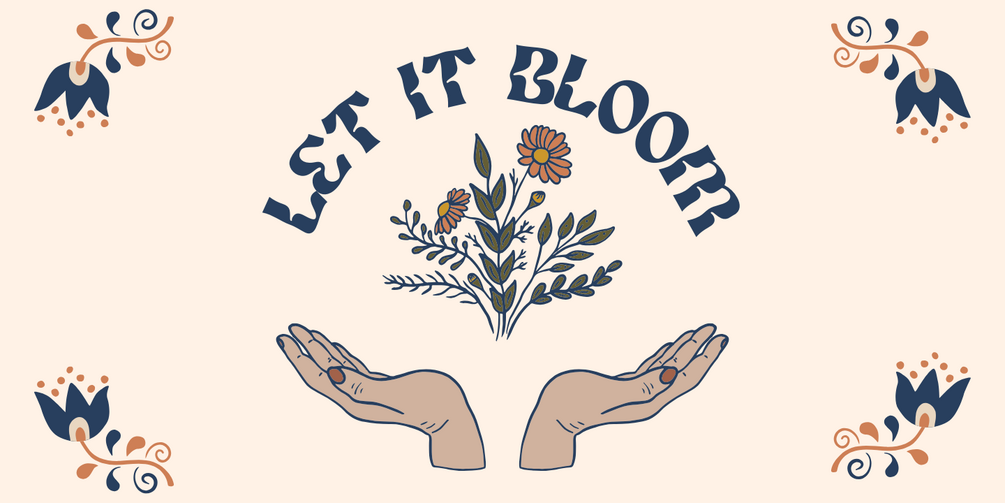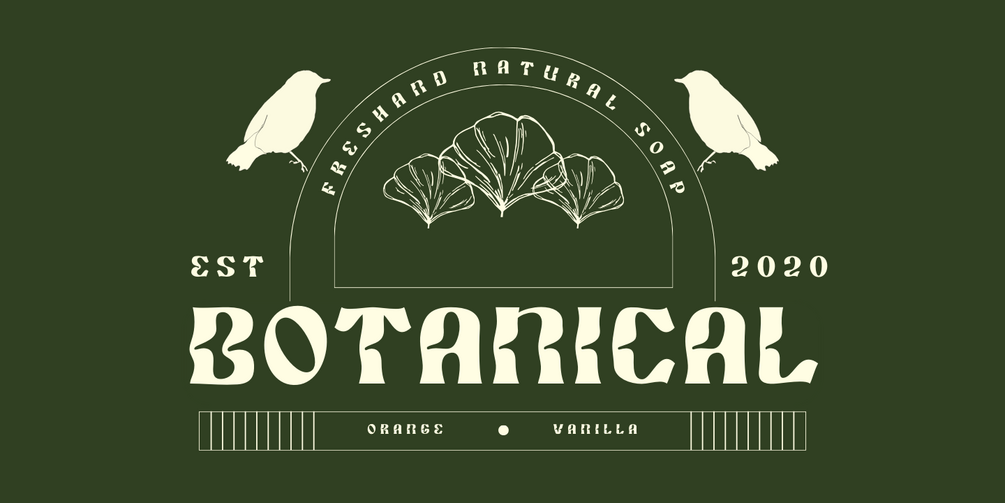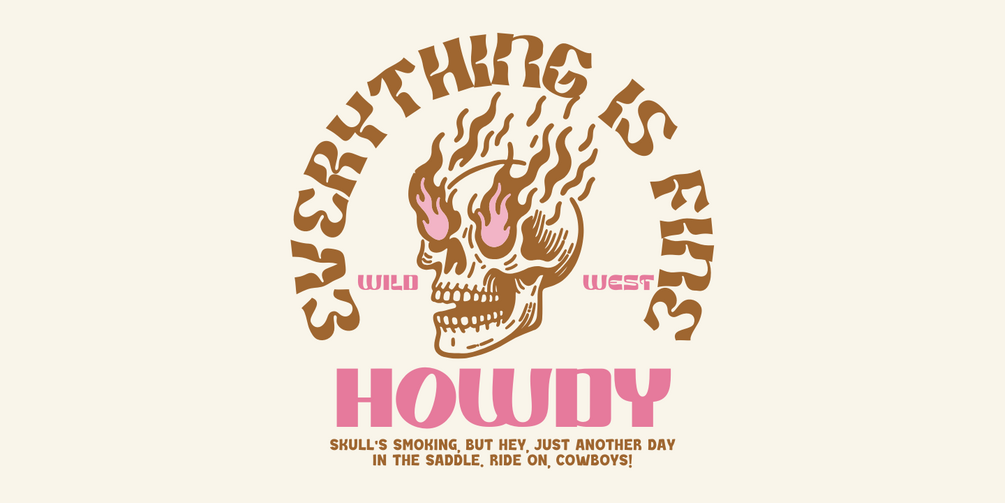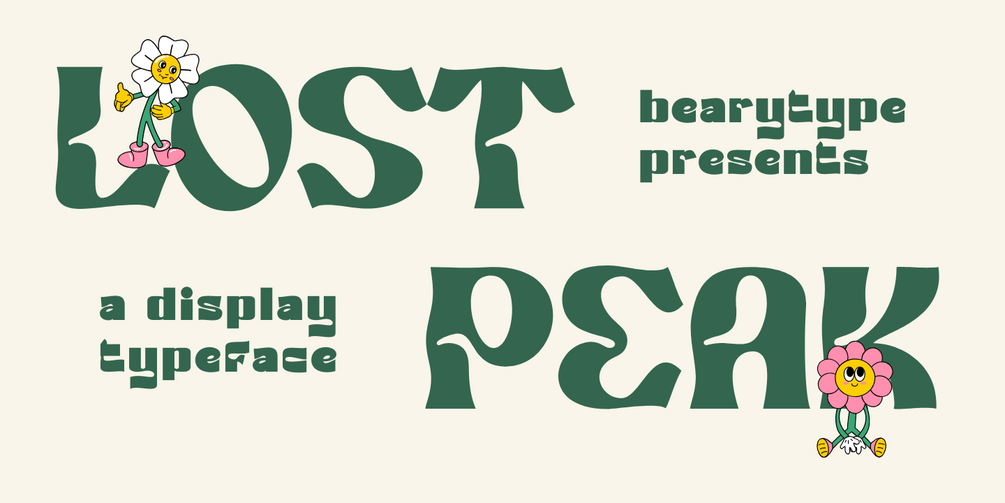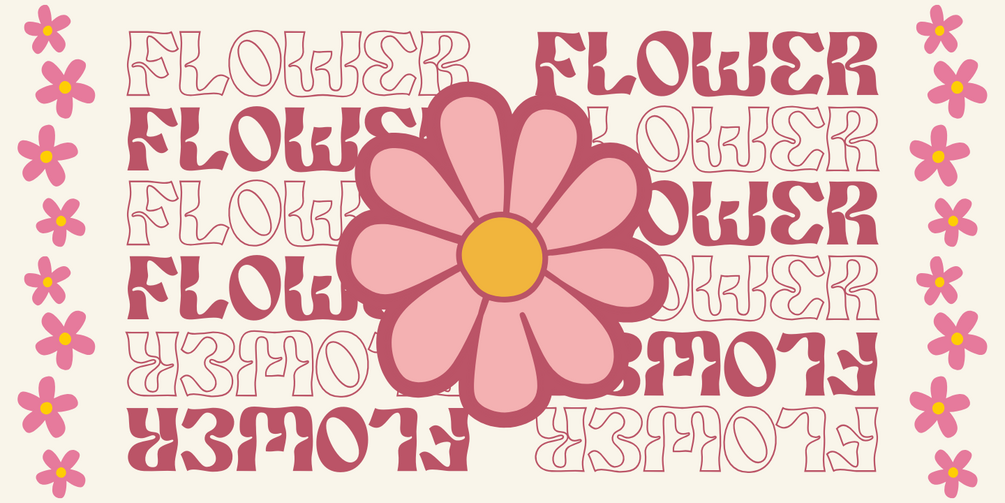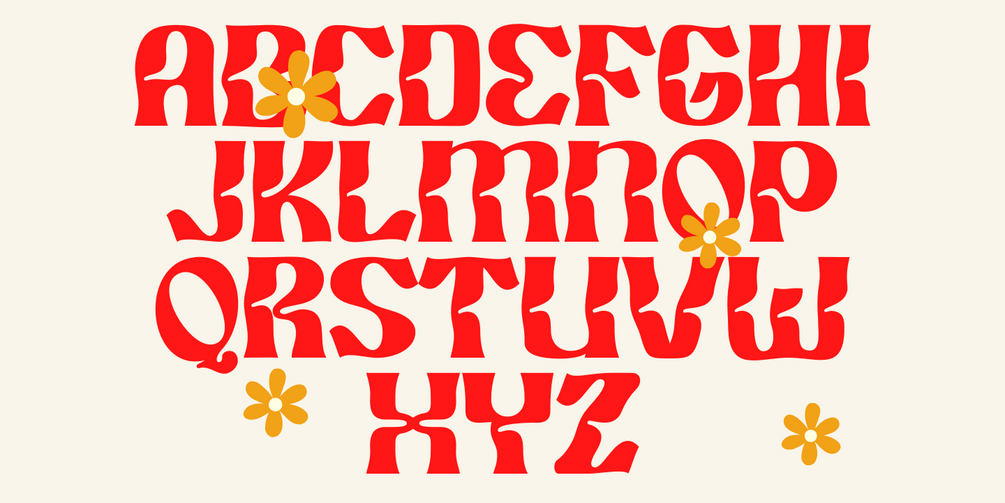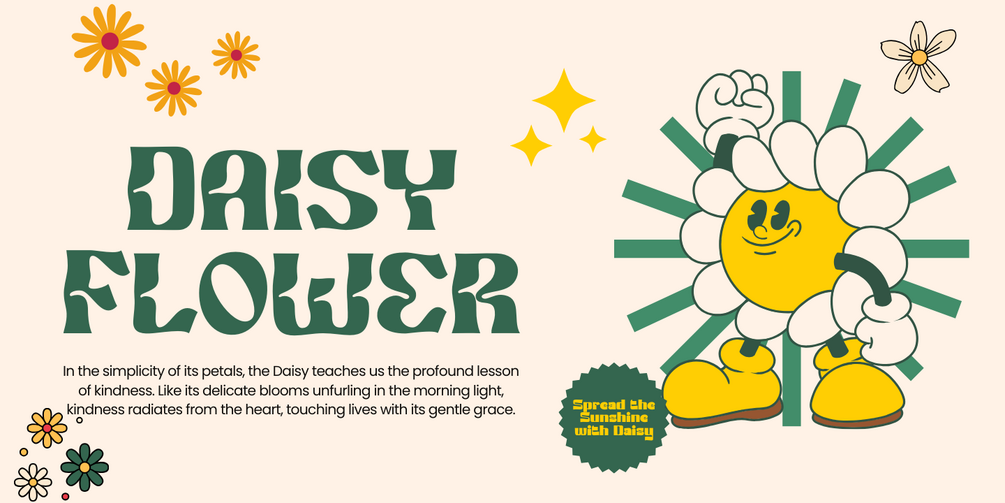
Lost Peak - Display Typeface
Lost Peak is a typeface inspired by retro styles with a touch of Art Nouveau. With its distinctive folk botanical style, this font offers a bold and modern look with a retro flair.
This versatile font can be used in a wide range of projects, including branding, mastheads, magazines, logos, Facebook banners, Instagram posts, websites, blog posts, pull quotes, product packaging, advertisements, and more. It pairs well with minimal sans serif or light script fonts to create a unique combination.
If you’re looking for something bold, retro, and full of character for your next project, Lost Peak is the perfect choice.